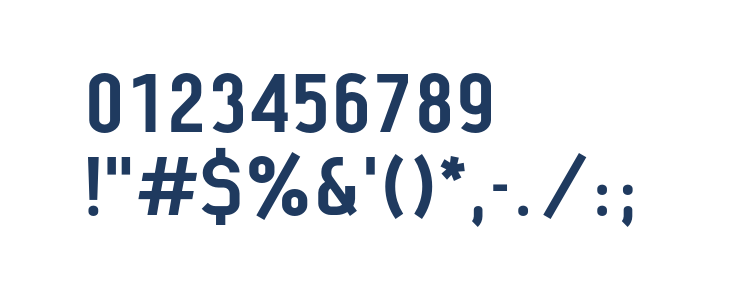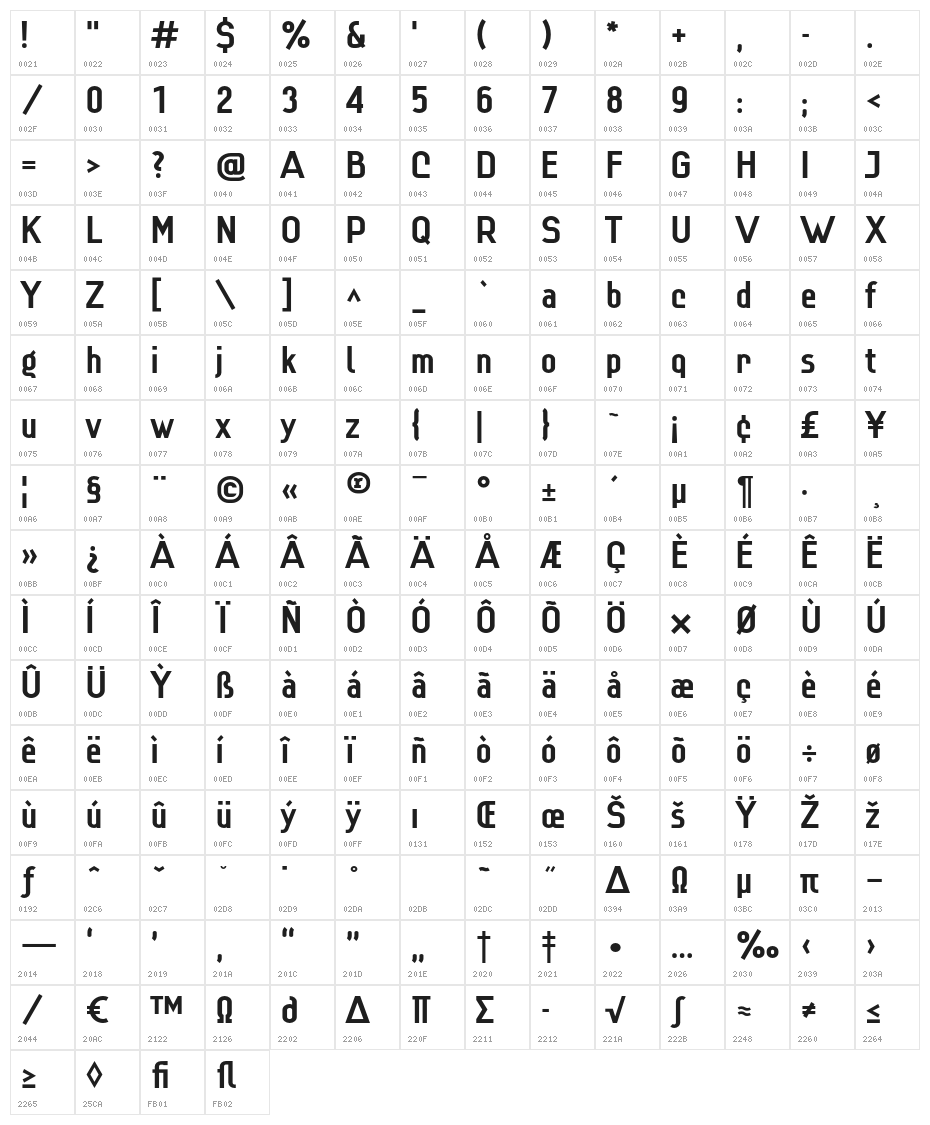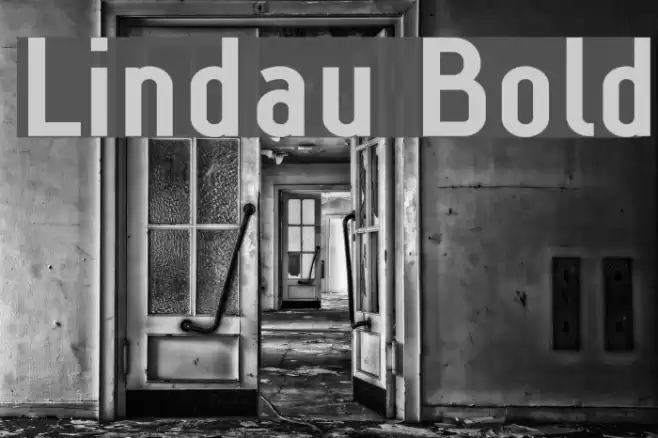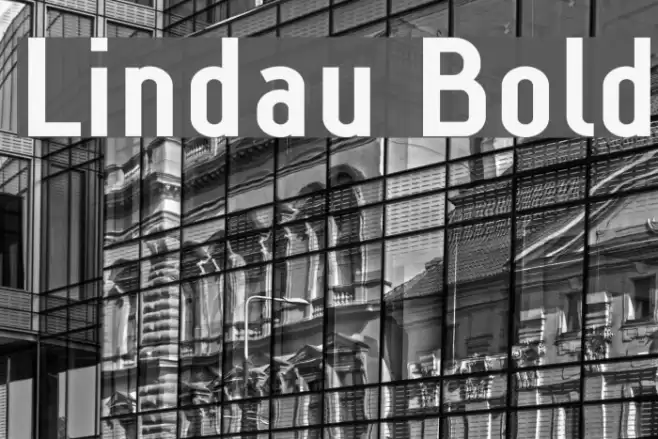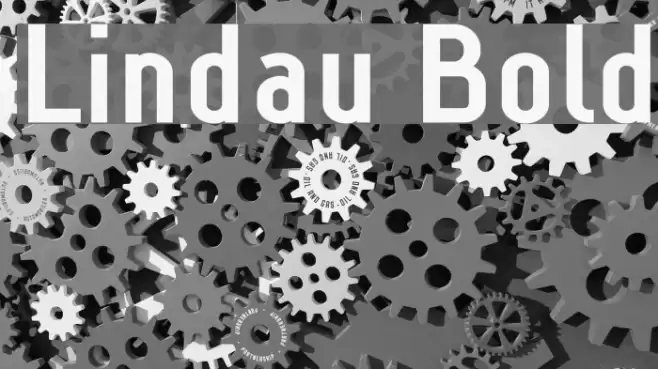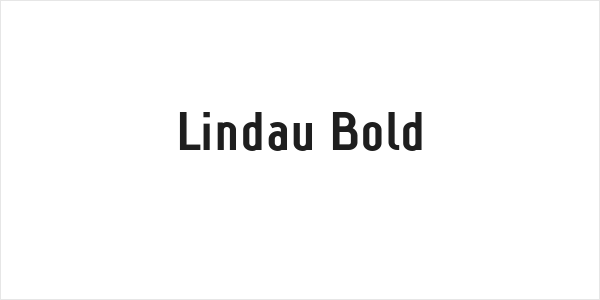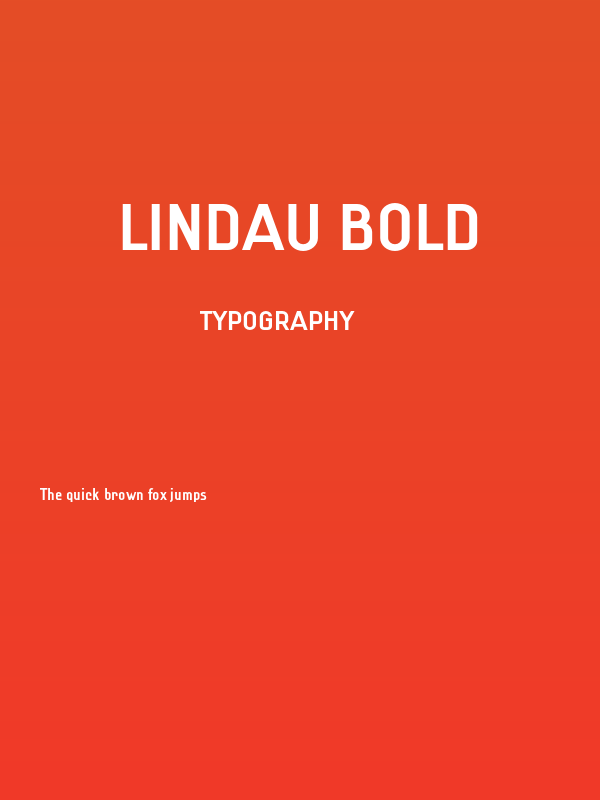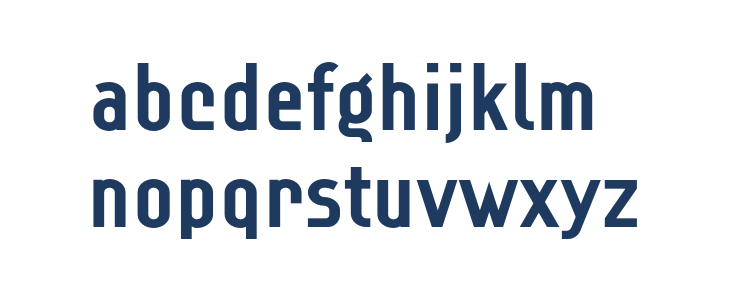
Lindau Bold Font
Lindau Bold Description
This font exhibits a bold and modern sans-serif style with a strong geometric influence. The characters are clean and straightforward, featuring uniform stroke widths that contribute to a cohesive and structured appearance. The uppercase letters are particularly striking, with a consistent height and width that create a balanced and harmonious look. The lowercase letters maintain this uniformity, offering a seamless transition between different text elements. Numerals are clear and easy to read, making them suitable for various applications. Special characters are well-defined, ensuring versatility in design projects. Overall, this font's boldness and clarity make it an excellent choice for impactful and contemporary designs.